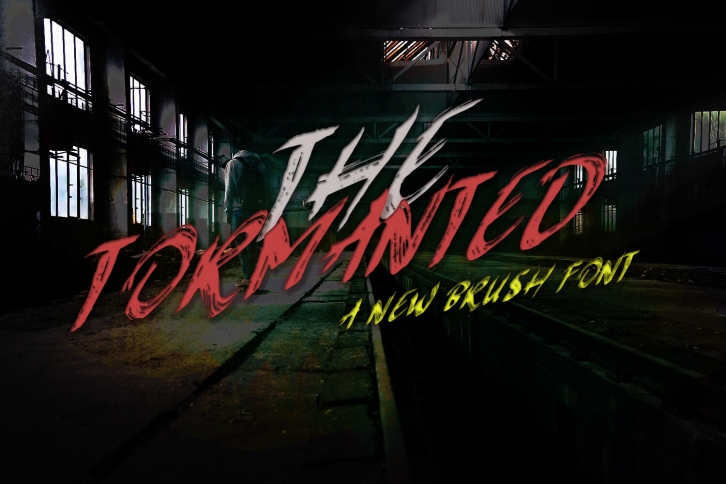
Tormanted Brush Font, from Mhdafifersya, combines attractive curves with a fresh urban edge; delivering a stylish script which is guaranteed to add an eye-catching appeal to your logo designs, brand imagery, handwritten quotes, product packaging, merchandise, social media post, or website font.